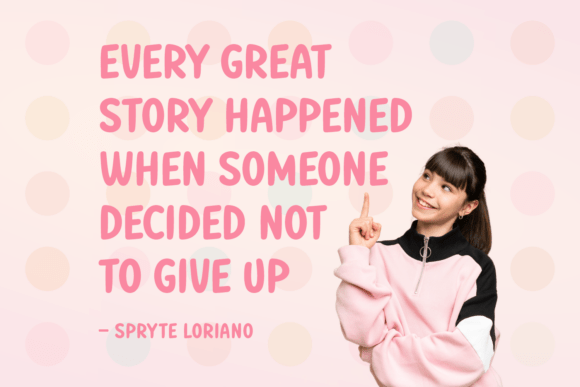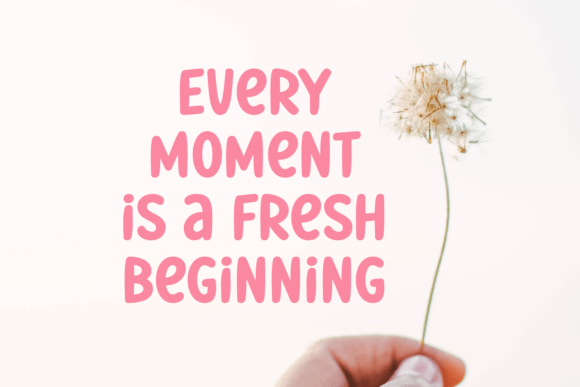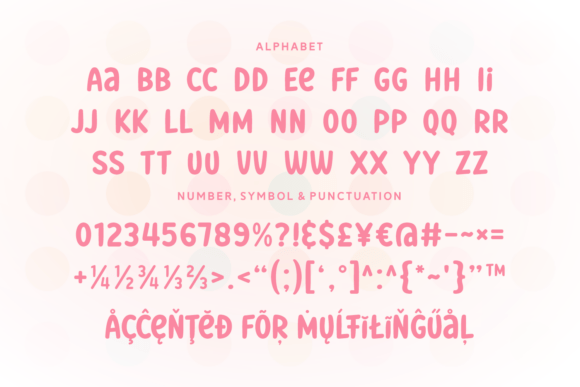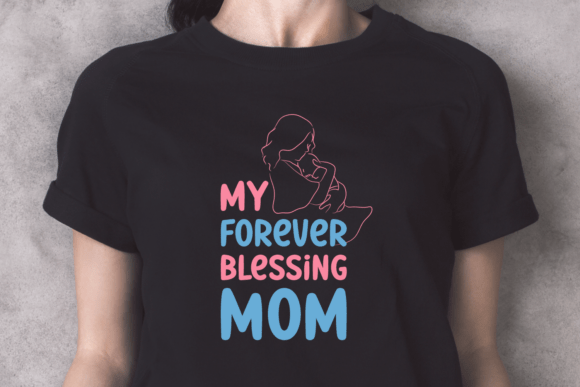
The Ultimate Design Game-Changer: Fun Mom Font
I’ll never forget the time I was working on a birthday party invitation project for a client’s kid, and I just couldn’t seem to find the perfect font. The design was almost done, but something was missing – a font that would capture the playful, whimsical vibe of the party. That’s when I stumbled upon the Fun Mom Font. It was love at first sight! ✨
This bold and cute display font has a relaxed theme, featuring a lovely style that’s perfect for a wide range of creative projects. From whimsical birthday invites to vintage-inspired merch, the Fun Mom Font offers endless creative freedom to craft standout designs.
- ✨ Unique and eye-catching design: The Fun Mom Font has a distinctive style that sets it apart from other fonts.
- ✅ Highly versatile: This font can be used for a wide range of projects, from digital designs to print materials.
- 💡 Inspires creativity: The Fun Mom Font’s playful vibe can spark new ideas and help you think outside the box.
While the Fun Mom Font is an excellent addition to any design library, there are a few things to keep in mind: ⚠️
- 🤔 May not be suitable for body text: Due to its bold and playful nature, the Fun Mom Font might not be the best choice for large blocks of text.
- ⚠️ Limited use of OpenType features: While the font has some great features, it may not have as many OpenType features as some other fonts.
- Use the font for headings, titles, or quotes to add a touch of personality to your document.
The Story Behind Fun Mom Font
The Fun Mom Font was designed with the intention of creating a playful and versatile font that would inspire creativity. The designer, who is also a mom, wanted to create a font that would capture the fun and carefree spirit of motherhood. With its bold and cute design, the Fun Mom Font is perfect for a wide range of creative projects.
| Font Name | Fun Mom Font |
| Author | Arnika Studio |
Q: What type of projects is the Fun Mom Font best suited for?
A: The Fun Mom Font is perfect for whimsical birthday invites, vintage-inspired merch, mother quote cards, stickers, and more.